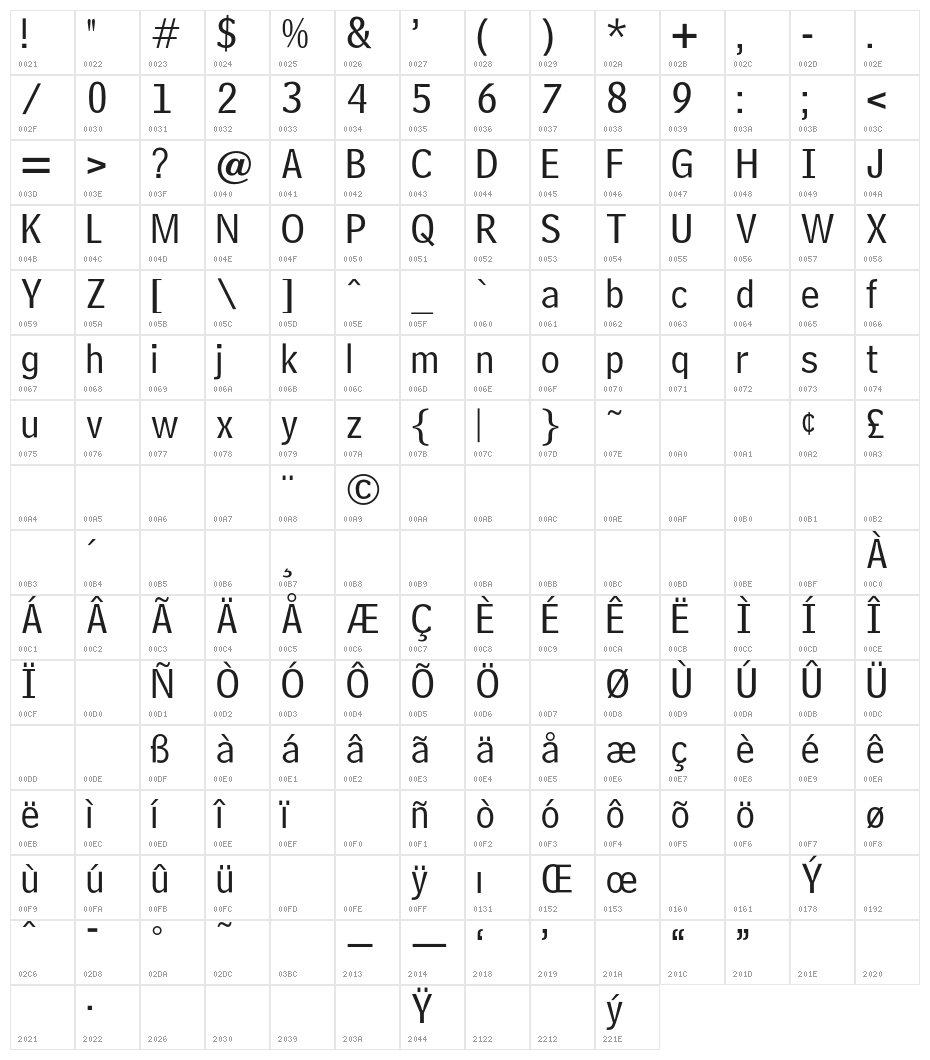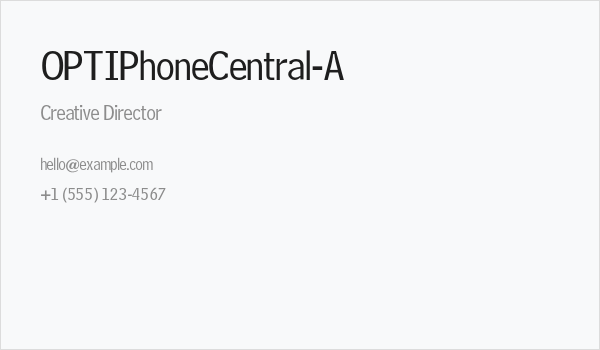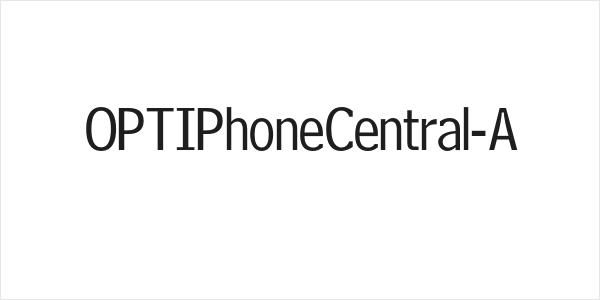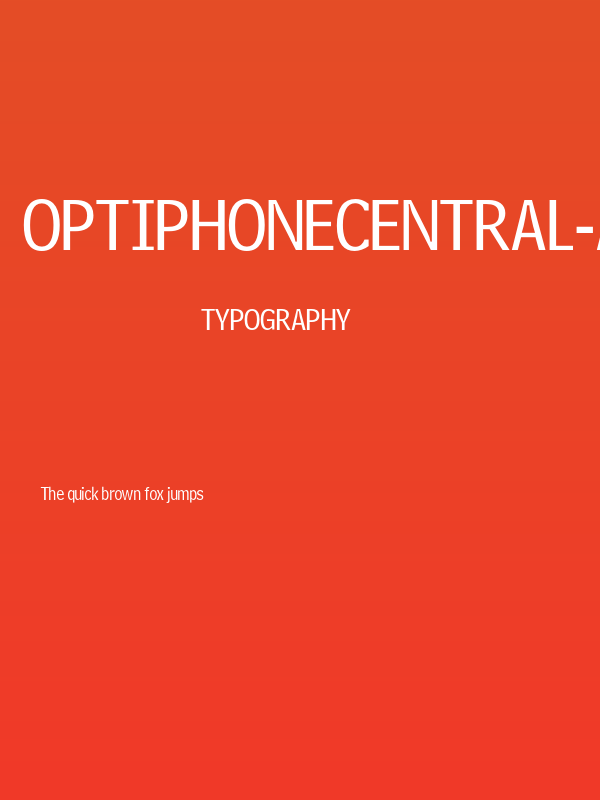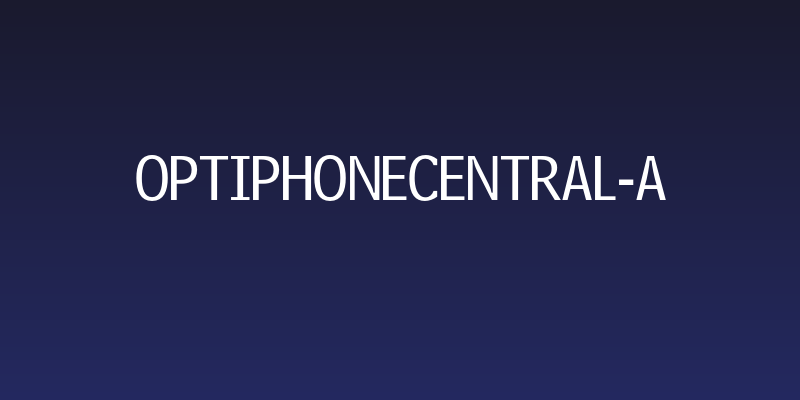
OPTIPhoneCentral-A Font
OPTIPhoneCentral-A Description
This typeface features a clean and modern sans-serif design, characterized by its uniform stroke width and geometric shapes. The letters are well-proportioned, with a slightly condensed appearance that enhances readability while maintaining a sleek aesthetic. The uppercase letters are bold and assertive, while the lowercase letters offer a harmonious balance with their rounded forms. The numerals are clear and distinct, making them suitable for various applications. Special characters are included, providing versatility for different contexts. Overall, this font exudes a contemporary and professional vibe, making it ideal for digital and print media.
| Width | Condensed |
| Use Case | Headlines, Body text, Logos |
| Proposed Projects | Ideal for corporate branding, website design, digital interfaces, and editorial layouts. |